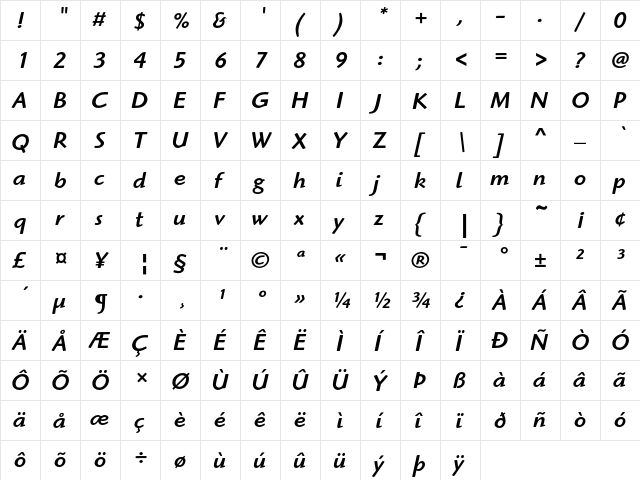
ITC Highlander Medium Italic
Design Context for ITC Highlander Typeface
ITC Highlander takes a measured approach to typography — its balanced proportions and neutral character make it a reliable workhorse for both digital and print work. The dynamic lean of this cut emphasises speed and emphasis in any layout.
Pro Tip: Try ITC Highlander for annotation and caption copy alongside an upright companion — the contrast in angle creates a dynamic but ordered typographic system.